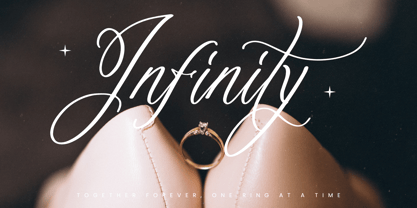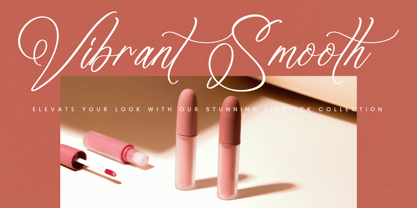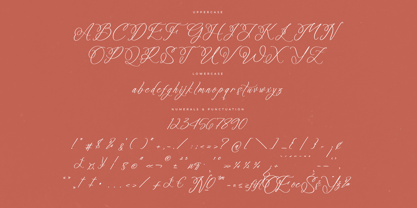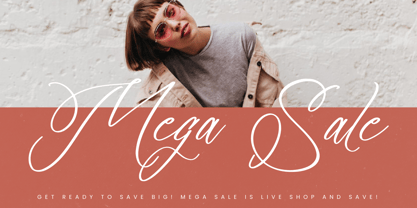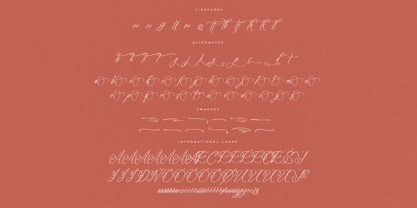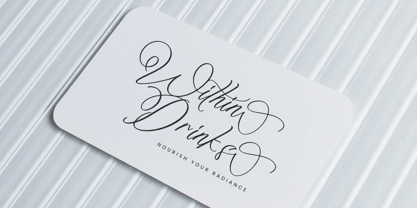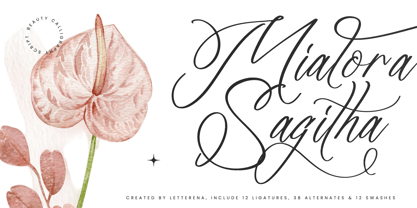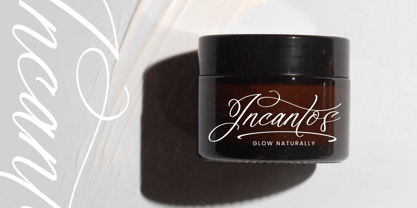
Mialora Sagitha
The Mialora Sagitha Font Family was designed by Heru Utama Putra and published by Letterena Studios. Mialora Sagitha contains 2 styles and family package options. More about this family
Mialora Sagitha – Beauty Calligraphy Script , from Letterena, is a Luxury Script font, suitable for any projects such as: logos, branding projects, homeware designs, product packaging, mugs, quotes, posters, shopping bags, t-shirts, book covers, name card, invitation cards, greeting cards, label, photography, watermark, special events, and all your other luxury and beautiful projects that need a Luxury Script taste.